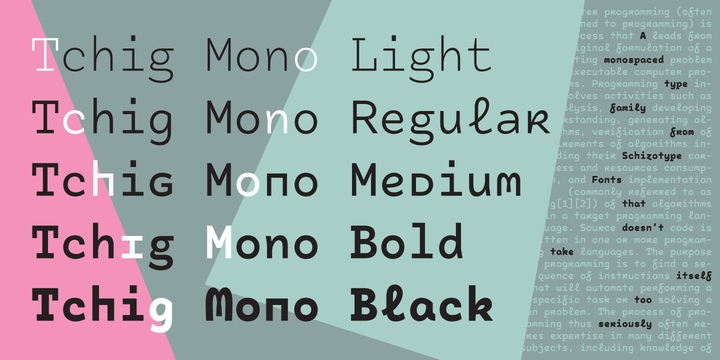
Tchig Mono Font
Tchig Mono Font is perfect for coding environments, software development branding, tech startup identity, programming documentation, digital terminal interfaces, cyberpunk poster design, hacker-themed graphics, code editor customization, retro computer aesthetics, gaming interface design, technical manual layouts, and futuristic sci-fi applications.
Tchig Mono Font is exciting because it captures the pure essence of digital precision and programming culture with perfectly uniform monospaced letterforms that echo the rhythmic beauty of clean code, making it ideal for projects that celebrate technical excellence, digital craftsmanship, and the methodical elegance of computational thinking.
The Tchig Mono Font family includes technical variations: Regular, Bold, Light, Italic, Condensed, and Extended styles, providing developers and designers with a complete monospaced typography system to create precise compositions that honor the disciplined beauty of programming and digital communication.
The font's precisely engineered letterforms feature uniform character spacing and optimized readability that ensures outstanding performance in coding environments and technical applications. Each character maintains perfect alignment and consistent width, creating the visual rhythm and systematic beauty that programmers and technical professionals appreciate.
Tchig Mono Font excels in creating authentic brand experiences for businesses in software development, cybersecurity, and technical education sectors. Its systematic appearance communicates precision and expertise, making it perfect for coding bootcamps, developer tools, and technology companies seeking to establish credibility with technical audiences.
Professional designers and developers value how Tchig Mono Font maintains authentic monospaced character while providing exceptional functionality across diverse technical applications. The comprehensive style range ensures optimal performance from code editors to technical presentations, maintaining consistent spacing and professional appeal.
This remarkable typeface brings instant technical credibility to software ventures and developer-focused businesses. From open-source projects to enterprise software companies, Tchig Mono Font creates lasting impressions that communicate expertise, reliability, and the methodical excellence that defines great programming and technical innovation.